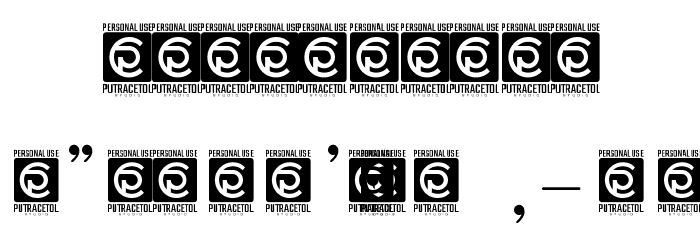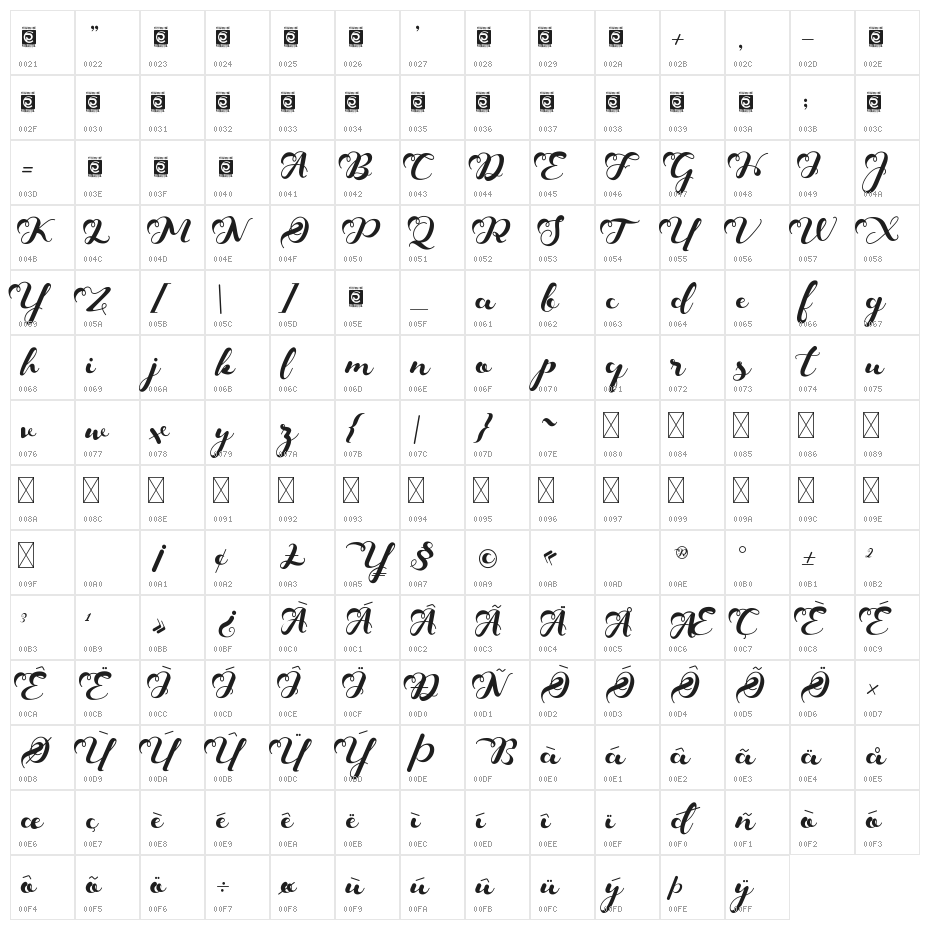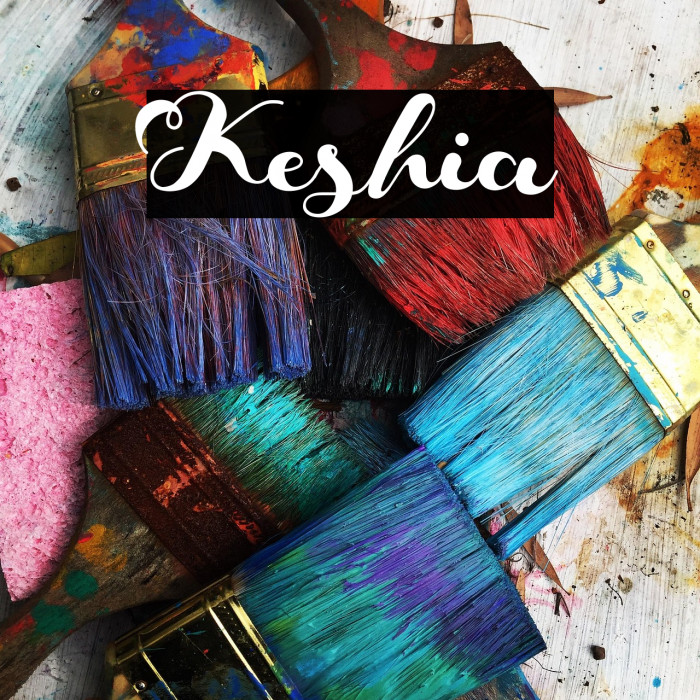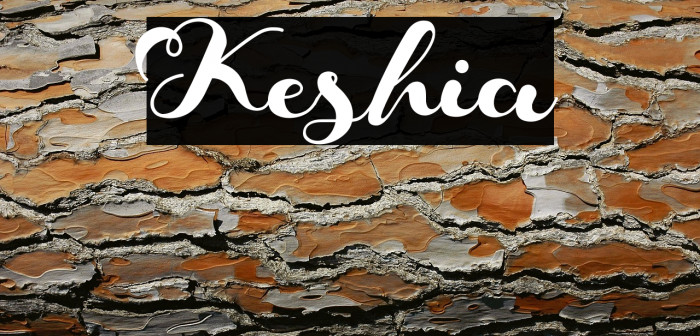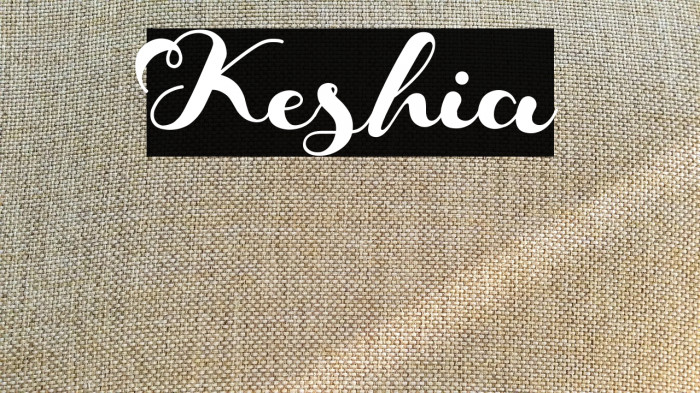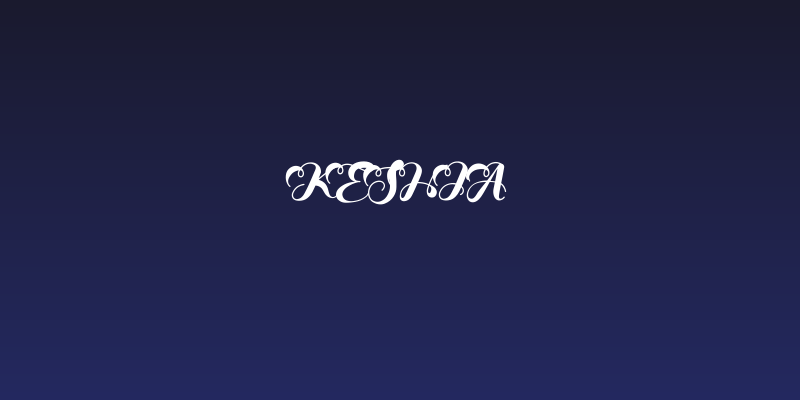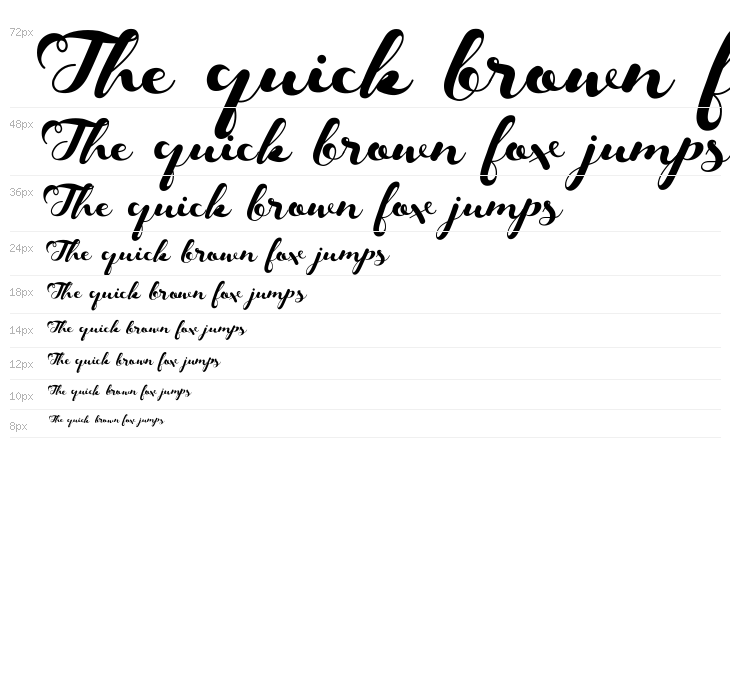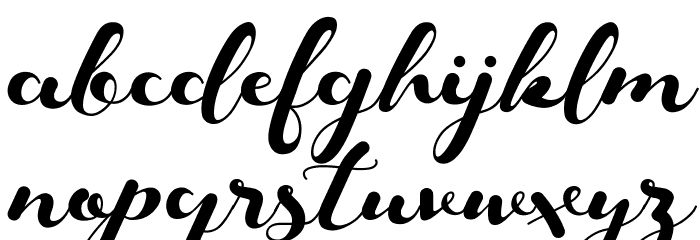
Keshia Font
Keshia Description
This font features a flowing, cursive style with elegant swashes and loops, giving it a sophisticated and artistic appearance. The uppercase letters are particularly ornate, with intricate flourishes that add a touch of luxury and grace. The lowercase letters maintain a consistent flow, enhancing readability while preserving the decorative nature of the font. The numerals and special characters are designed to match the overall aesthetic, ensuring a cohesive look across all text elements. This font is ideal for projects that require a touch of elegance and creativity.
| Proposed Projects | Wedding invitations, luxury branding, greeting cards, and artistic posters. |